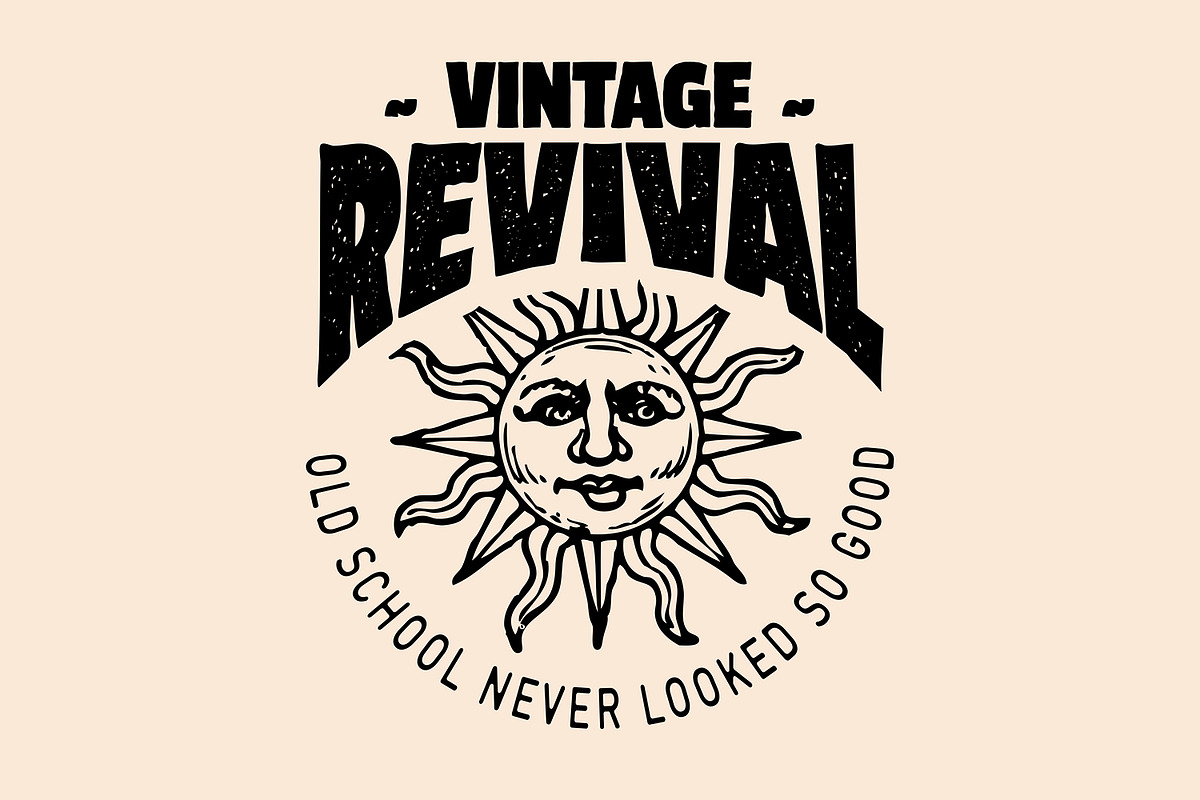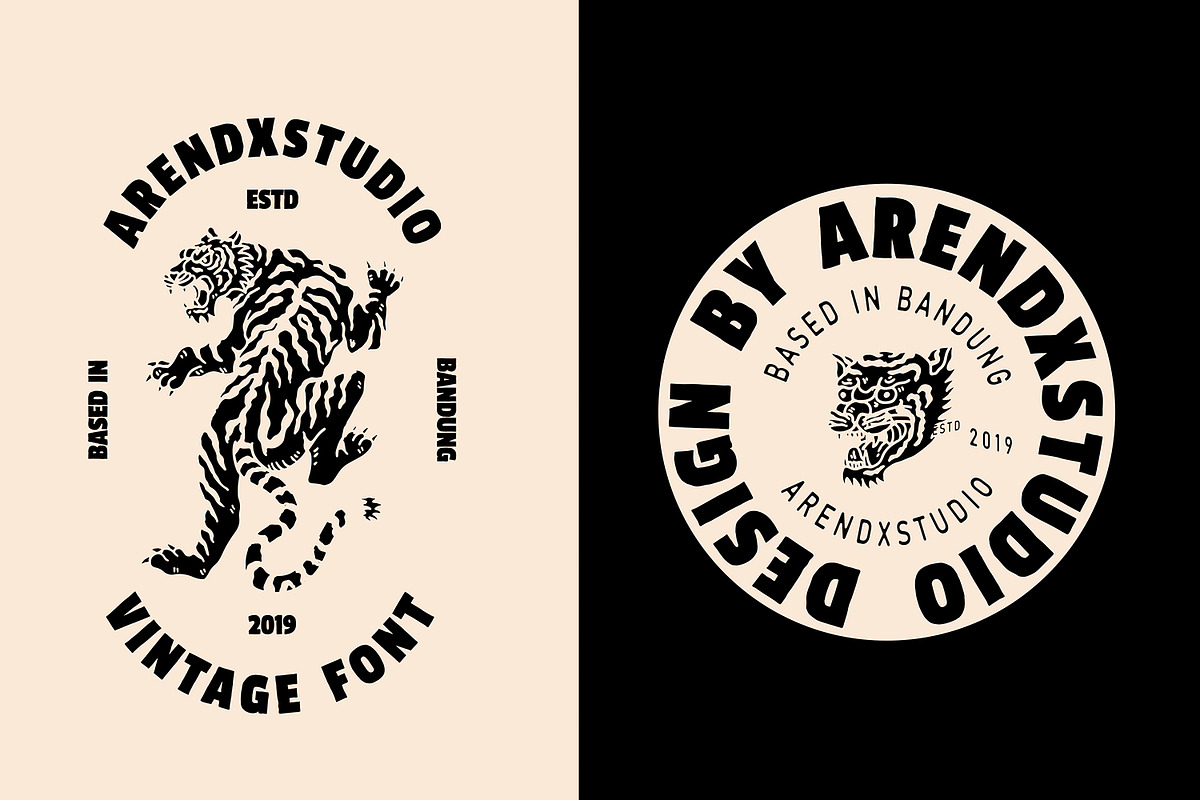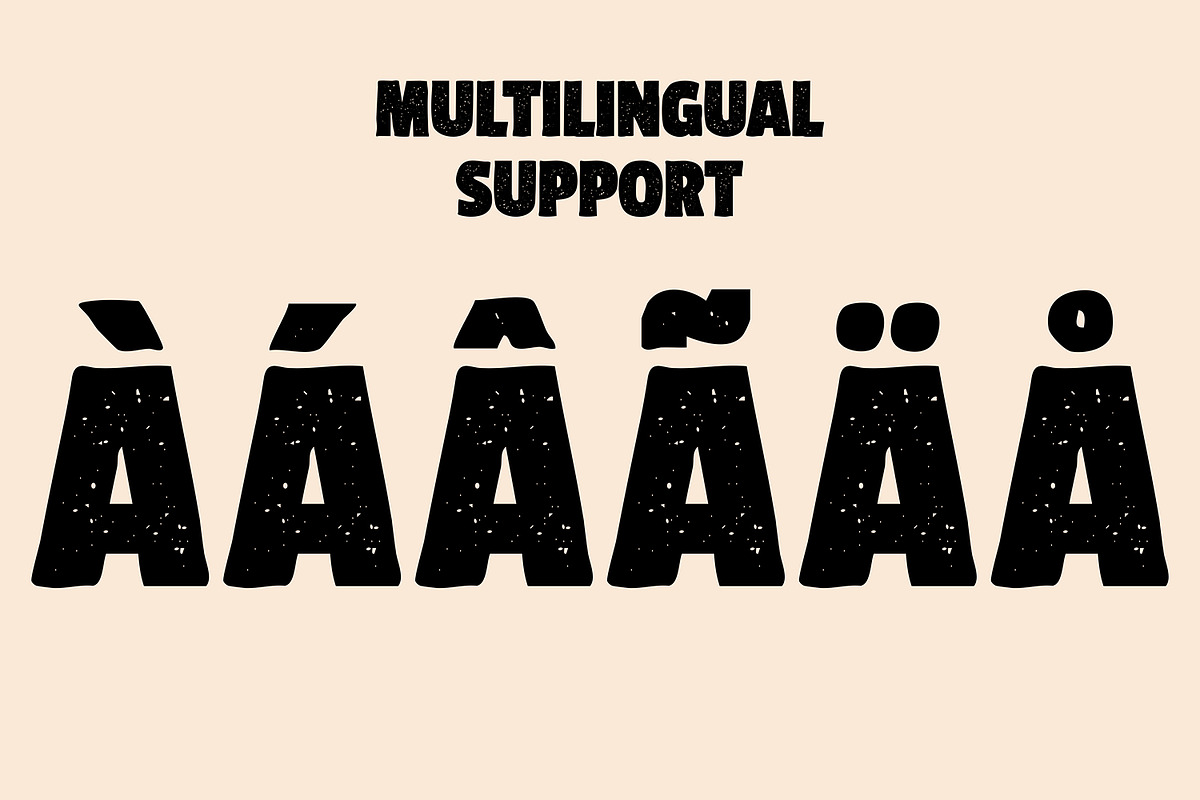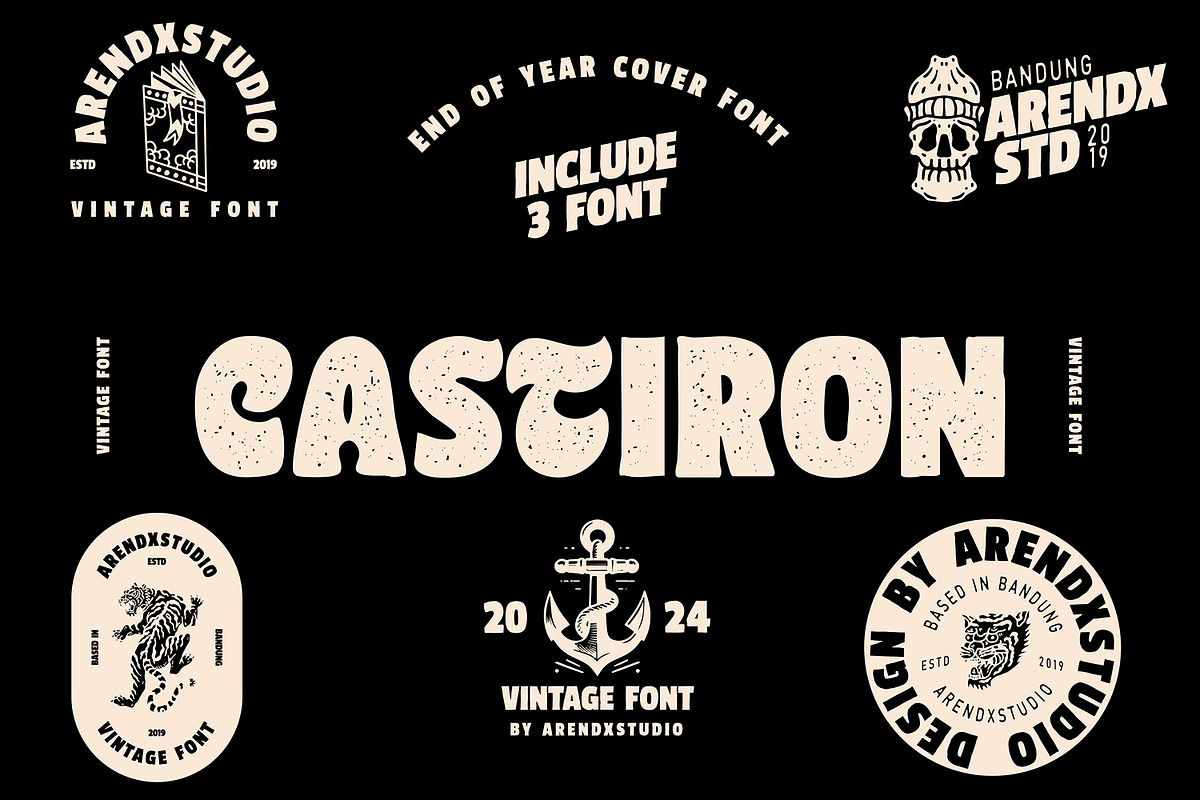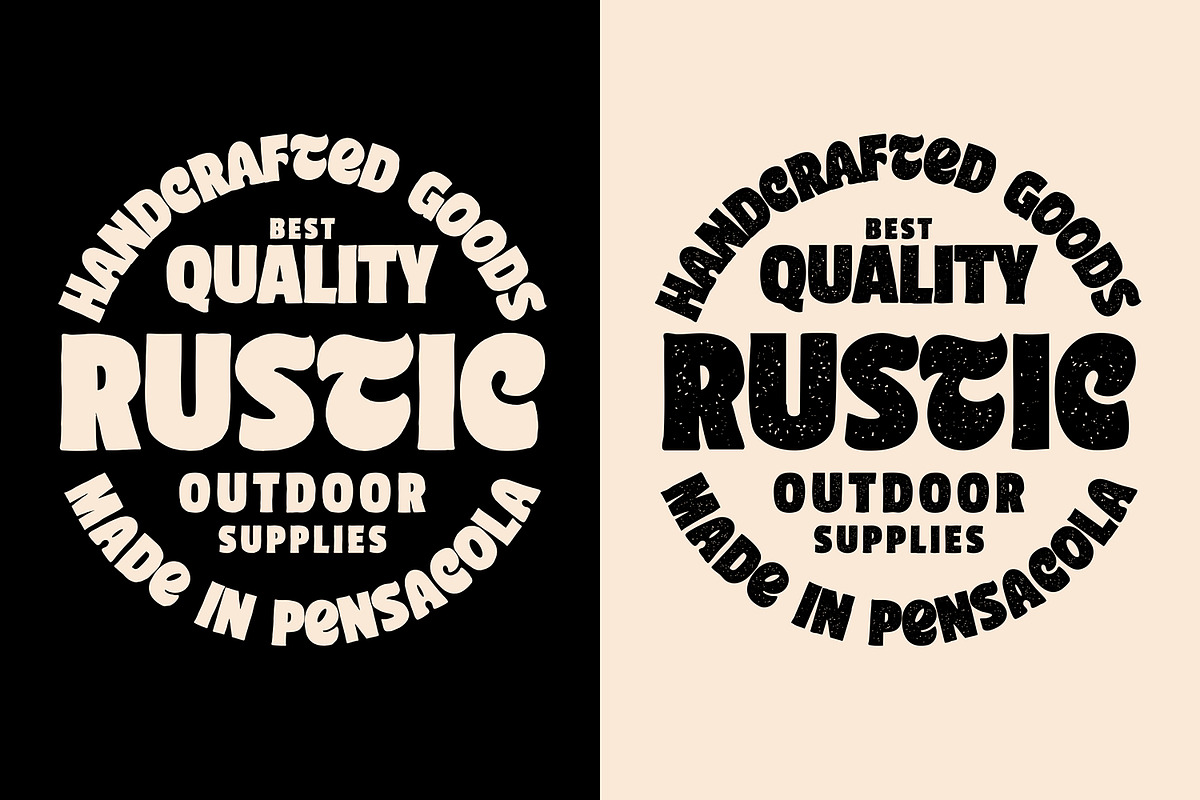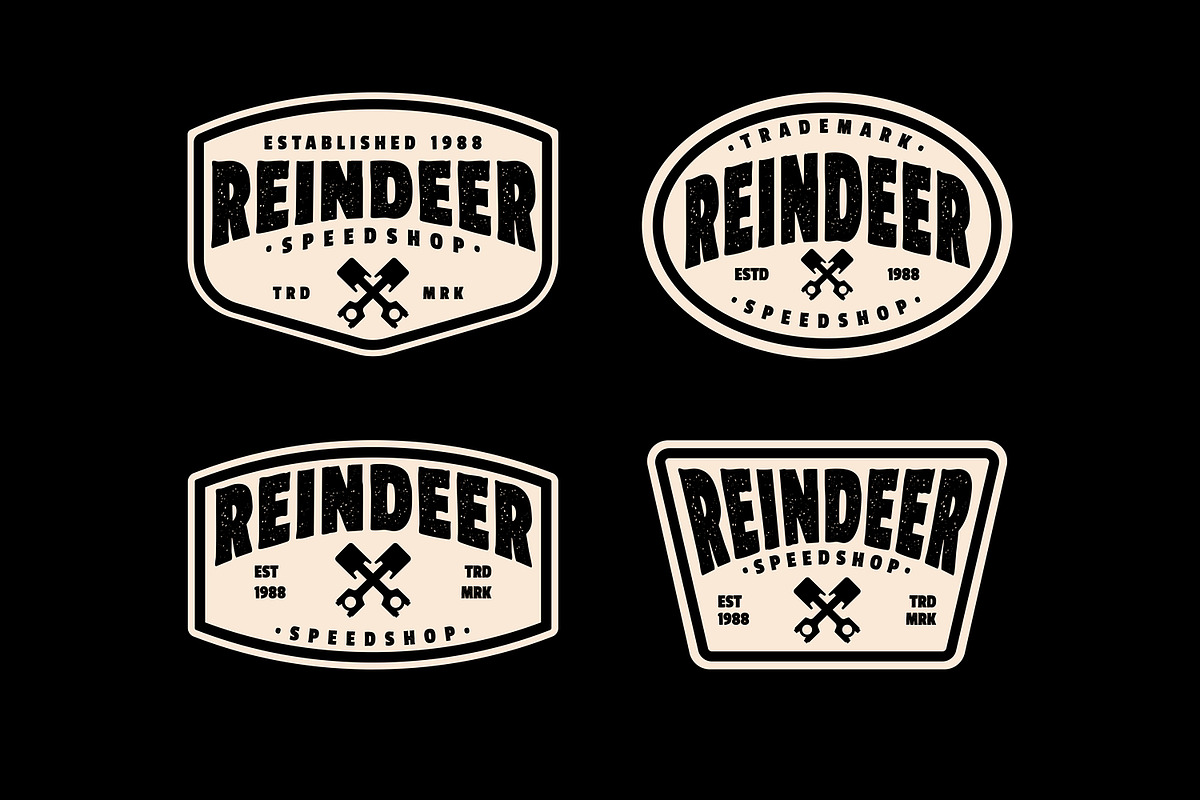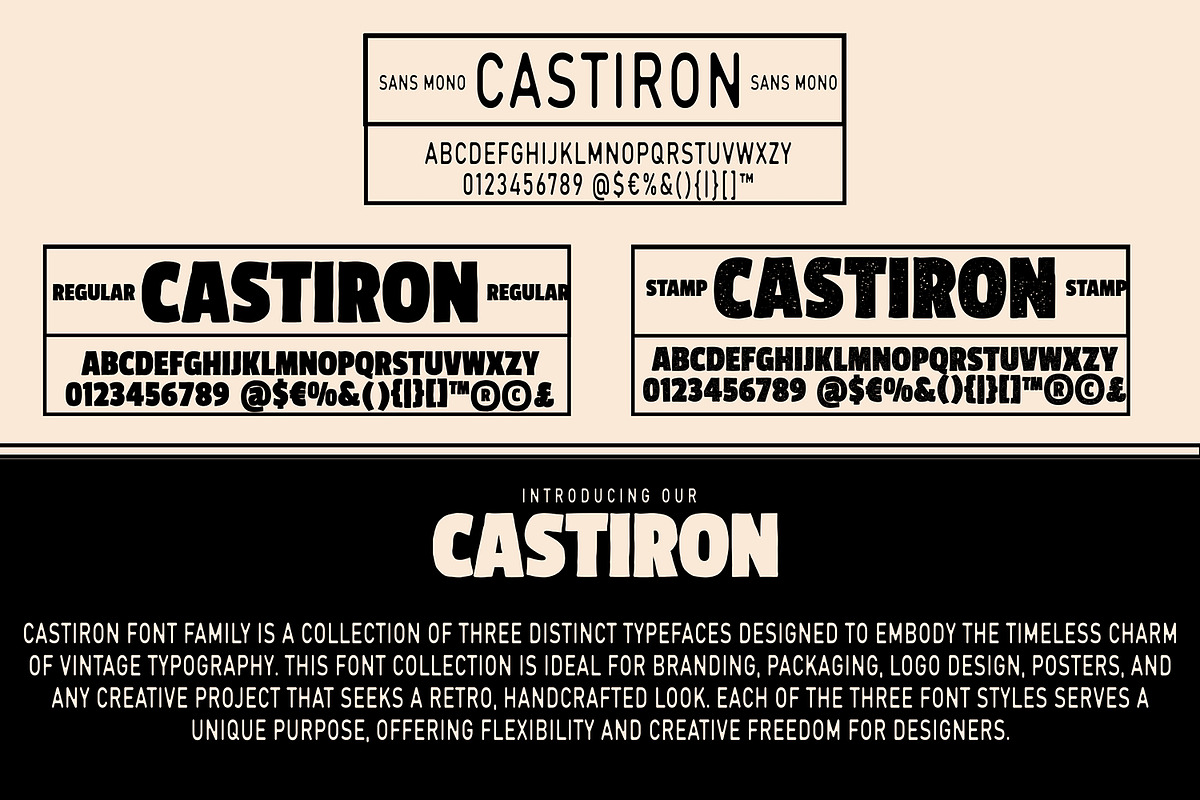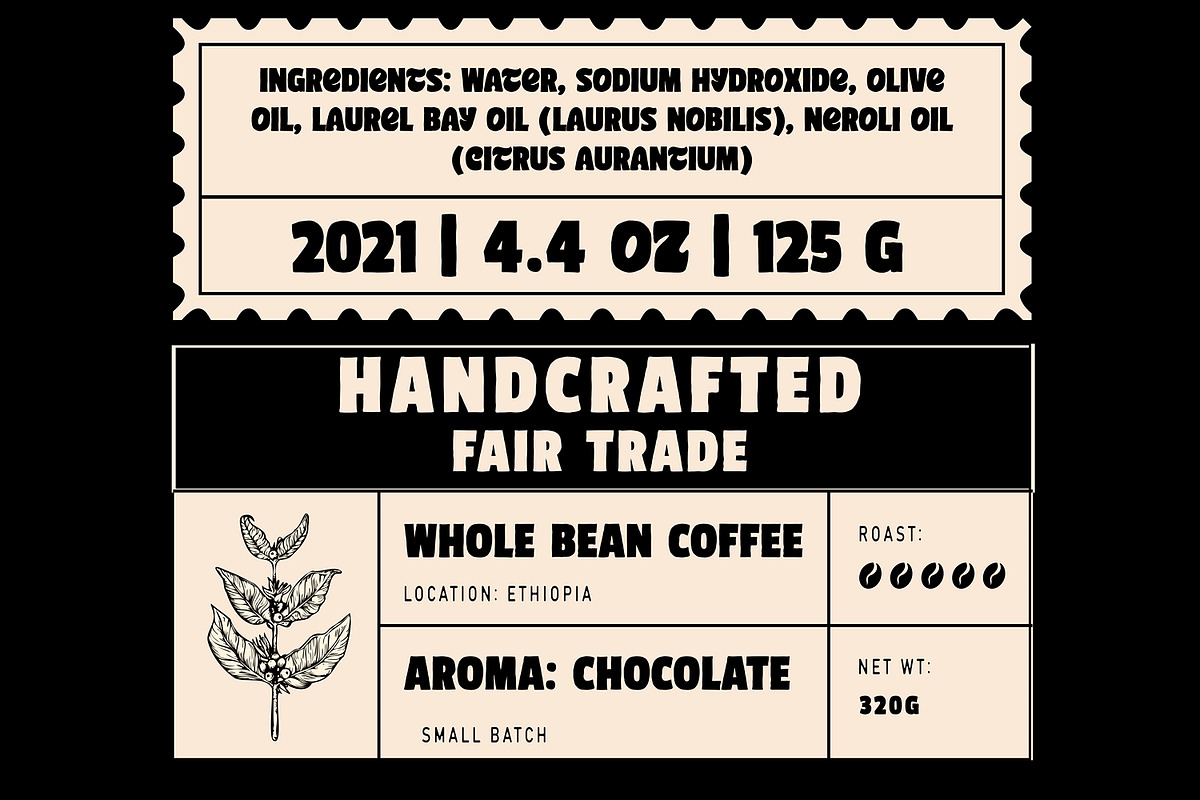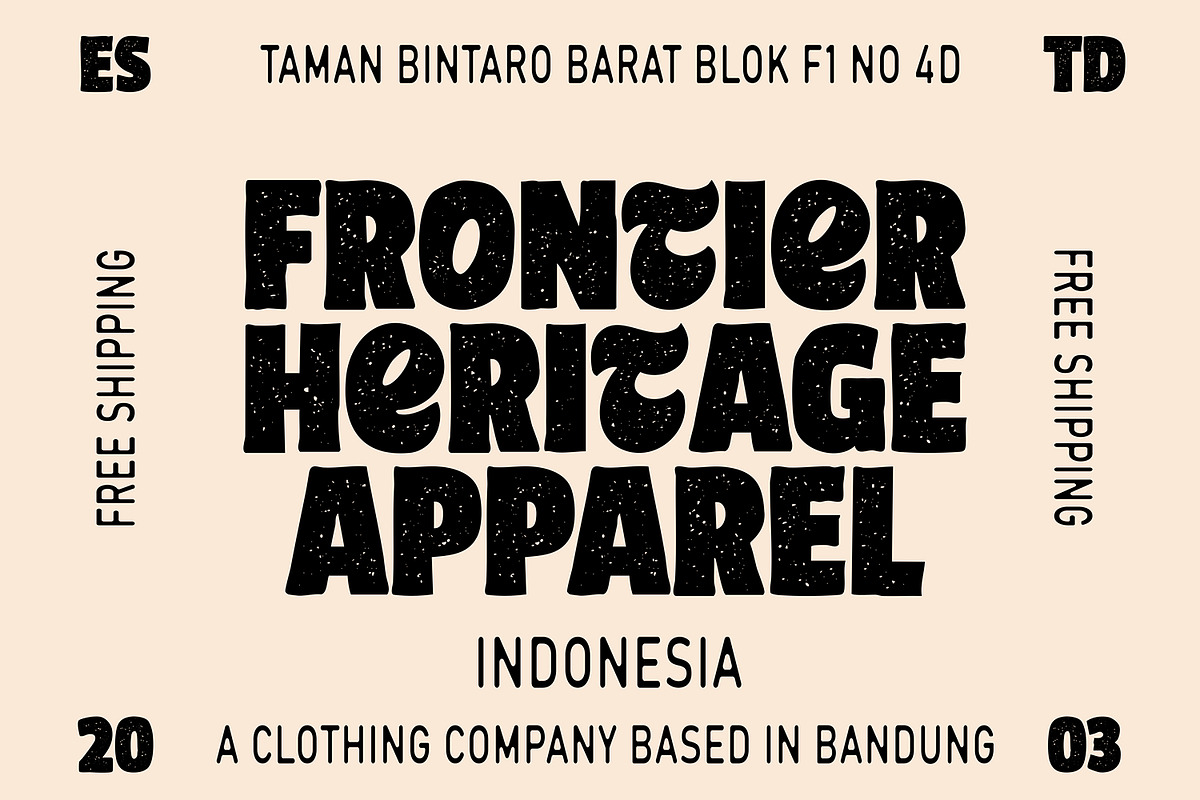
Castiron - Vintage Font
Castiron font family is a collection of three distinct typefaces designed to embody the timeless charm of vintage typography. This font collection is ideal for branding, packaging, logo design, posters, and any creative project that seeks a retro, handcrafted look. Each of the three font styles serves a unique purpose, offering flexibility and creative freedom for designers.
Why Choose the Castiron Font Trio? The Castiron collection offers a dynamic blend of styles that provide designers with the ability to create multi-layered, impactful designs. By using Regular for strong headlines, Stamp for a rustic, textured look, and Monoline Sans for clean, minimal details, you can achieve balance and versatility in your projects.
Whether you're designing for t-shirt prints, signage, posters, logos, or product packaging, Castiron fonts bring a sense of craftsmanship, nostalgia, and boldness that echoes classic industrial aesthetics.